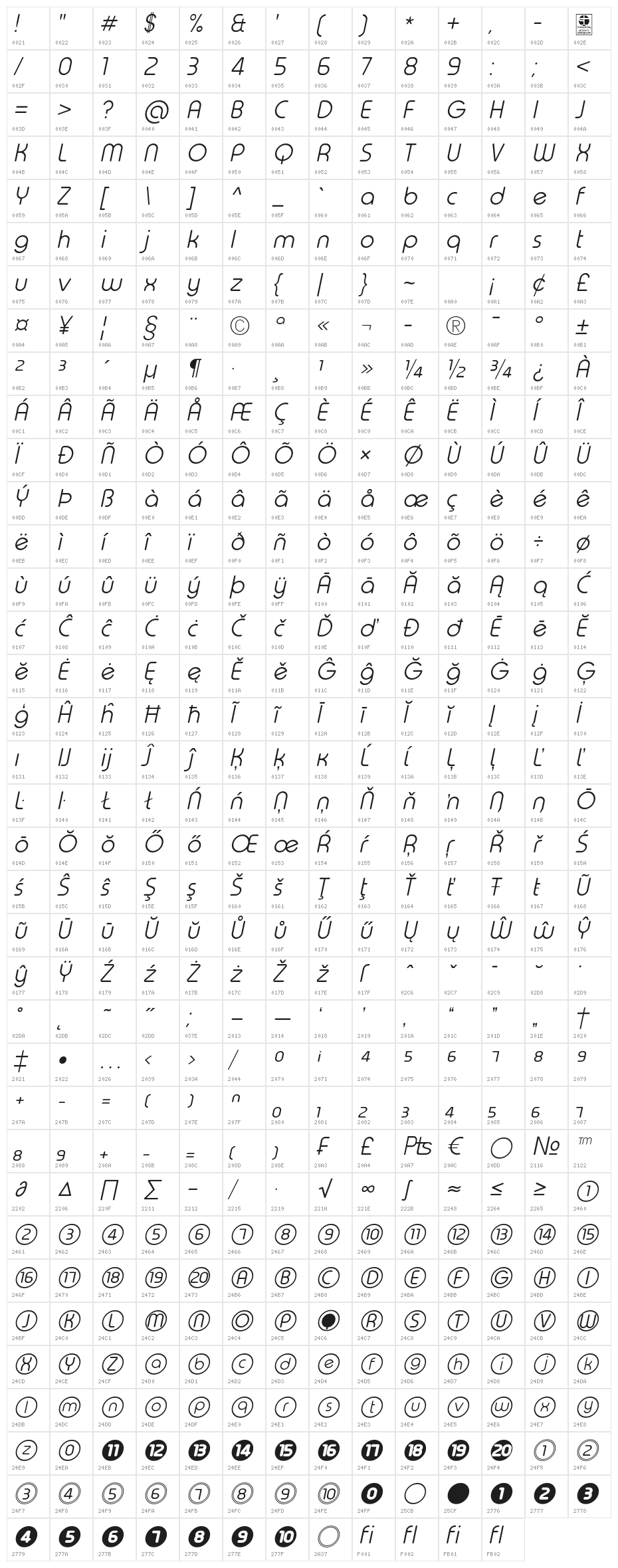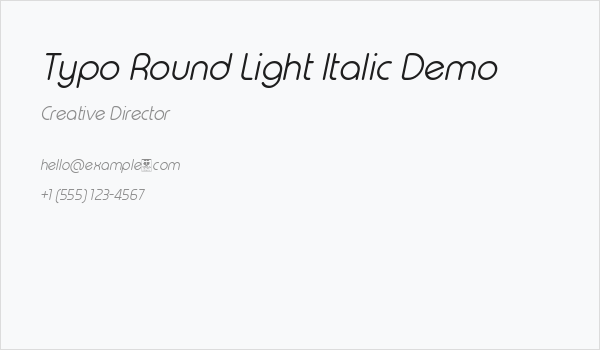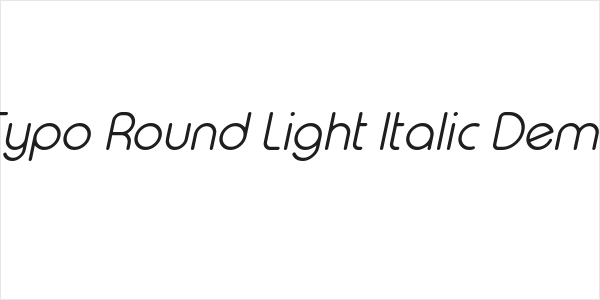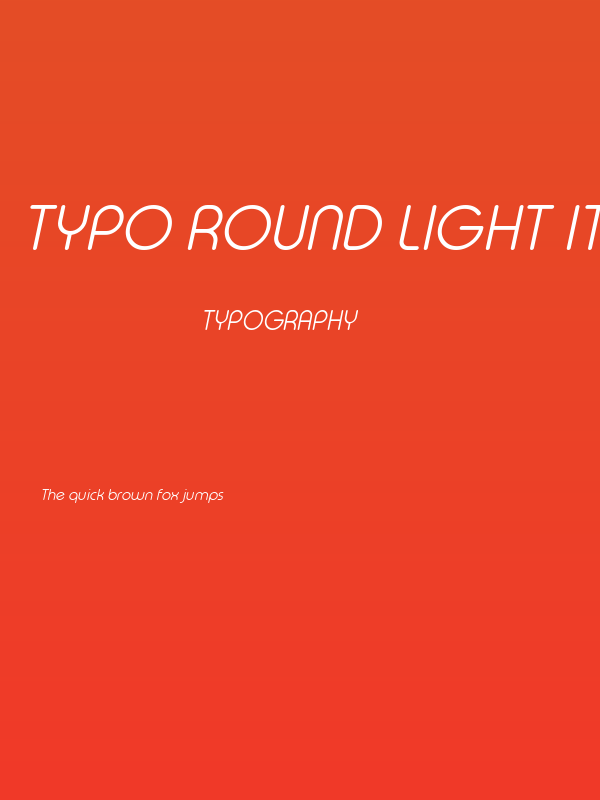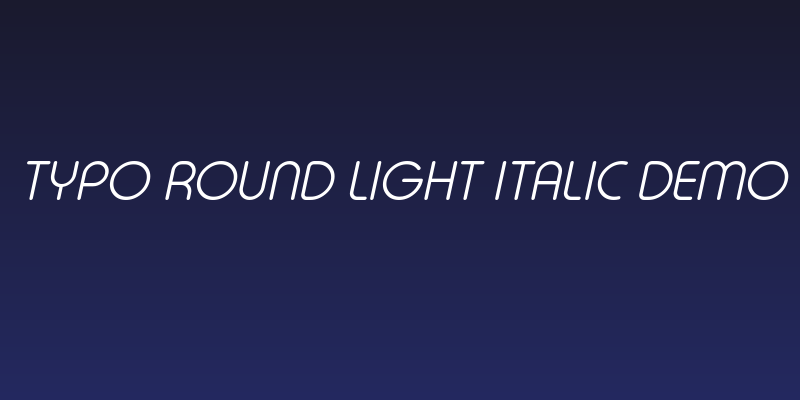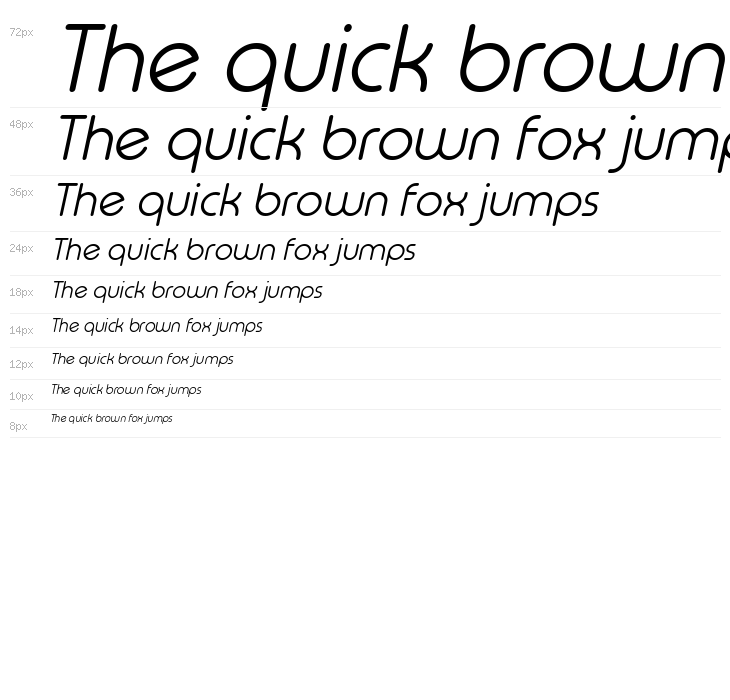
Typo Round Light Italic Demo Font
Typo Round Light Italic Demo Description
This font features a sleek and modern design with rounded edges and a light weight, giving it an airy and elegant appearance. The italic style adds a dynamic and fluid touch, making it suitable for contemporary design projects. The characters are well-proportioned, with a consistent stroke width that provides a harmonious look across both uppercase and lowercase letters. The numerals and special characters maintain the same stylistic approach, ensuring uniformity throughout. Its clean and minimalist aesthetic makes it versatile for various applications.